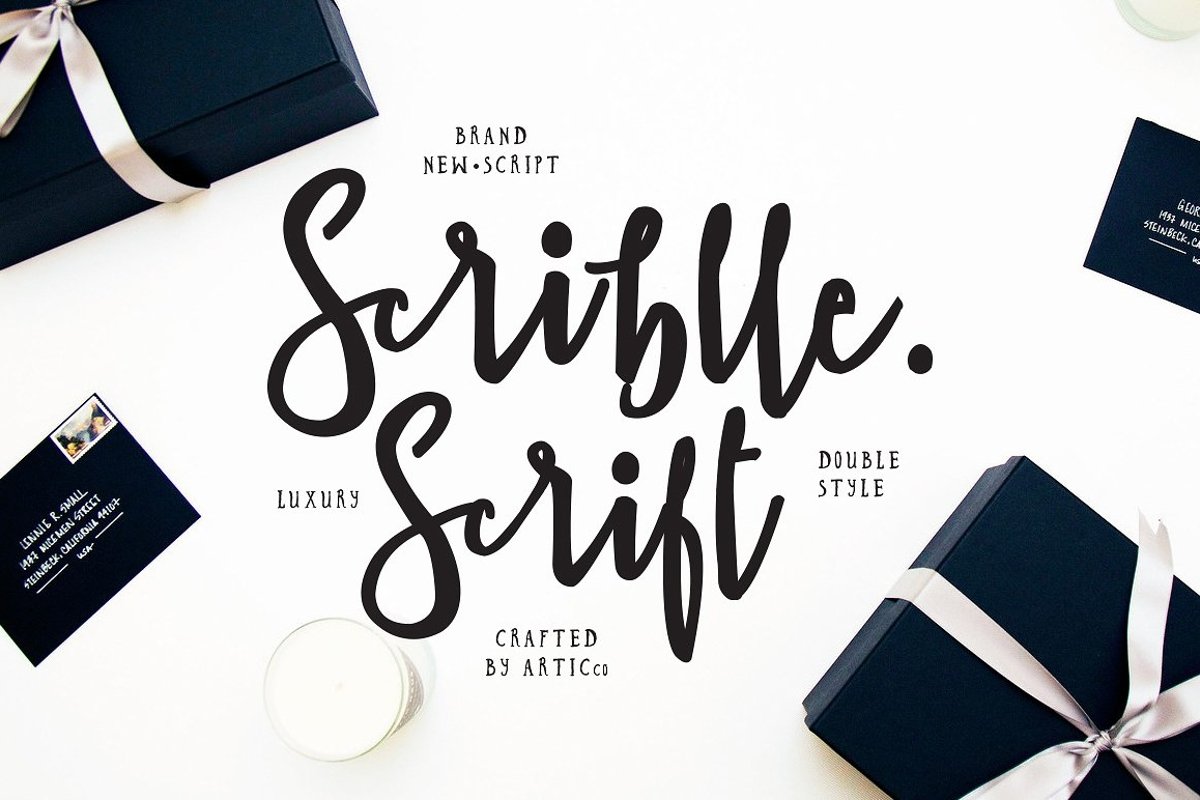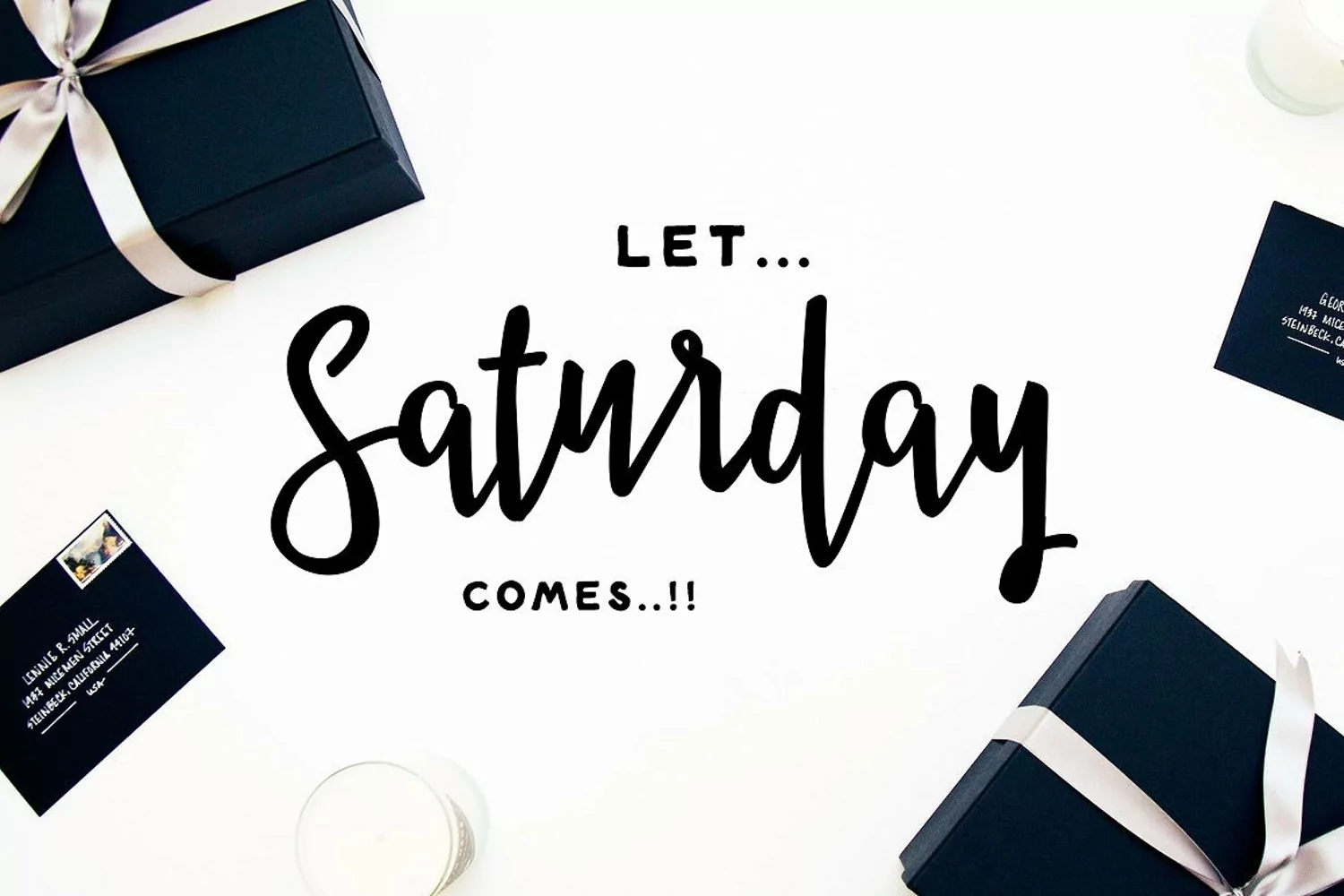
Introducing Scriblle Script. A standard family script fonts in the marketScriblle Script is a new varieties of handlettered script font in the market, allowing you to make each word look completely stylish!WHATS INCLUDED :